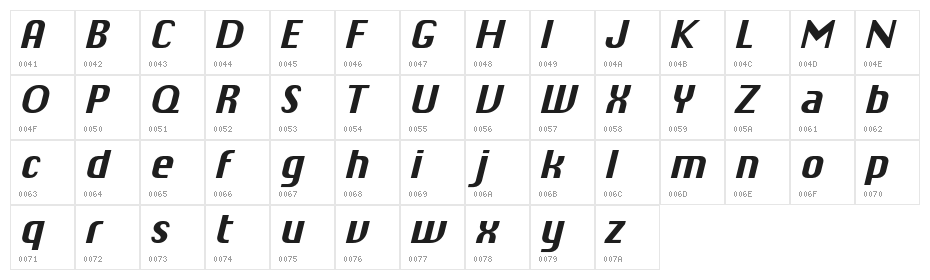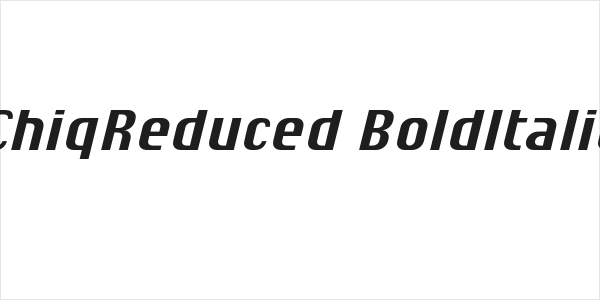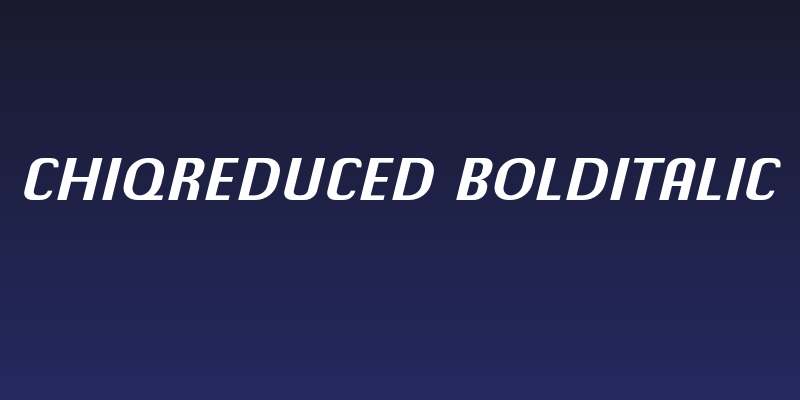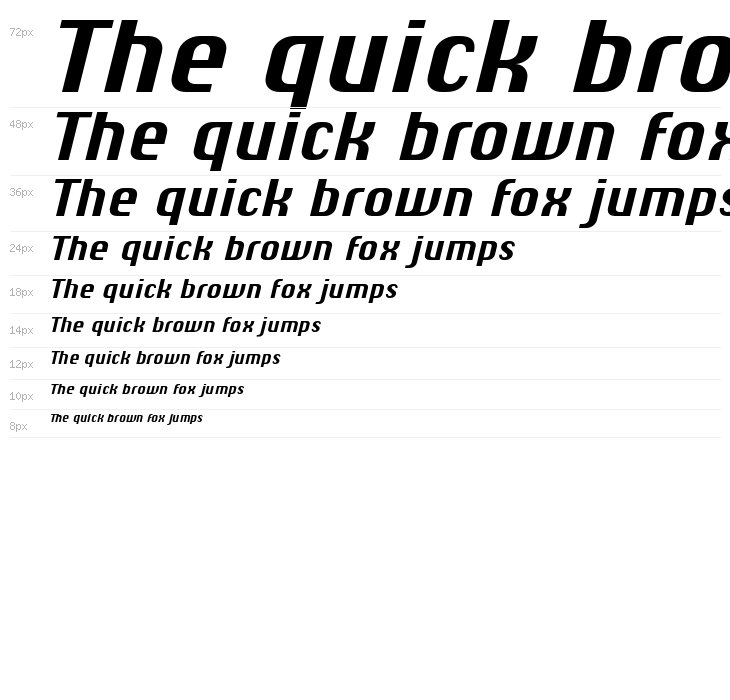
ChiqReduced-BoldItalic Font
ChiqReduced-BoldItalic Description
This font features a bold and italicized style with a modern and sleek appearance. The characters are slightly condensed, giving it a compact and efficient look. The strokes are consistent in thickness, providing a medium contrast that enhances readability while maintaining a stylish flair. The font's design is clean and contemporary, making it suitable for various applications where a touch of elegance and modernity is desired. Its italic nature adds a dynamic and forward-moving feel, perfect for projects that require a sense of motion or emphasis.
Use CaseHeadlines, Logos, Advertising
Proposed ProjectsIdeal for branding, advertising, headlines, and digital media where a modern and dynamic look is needed.